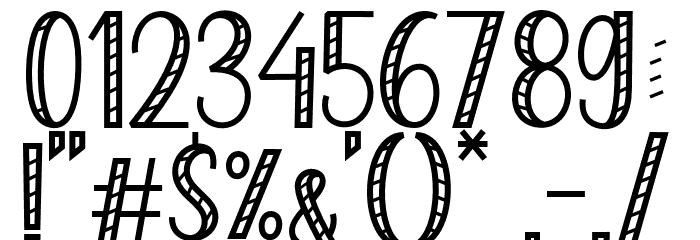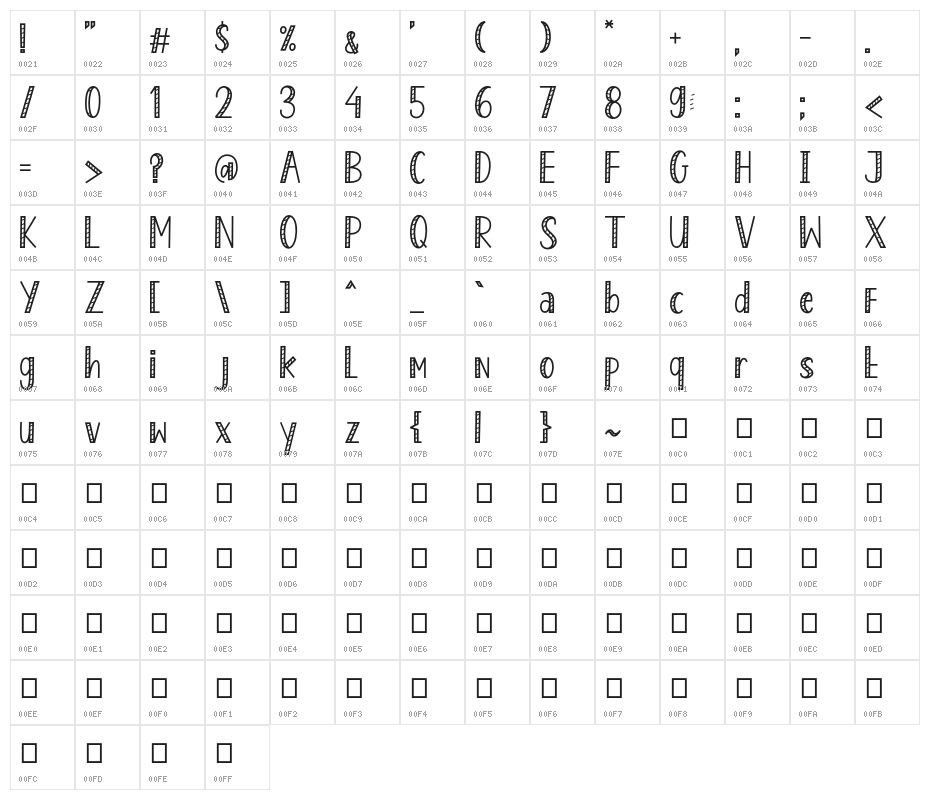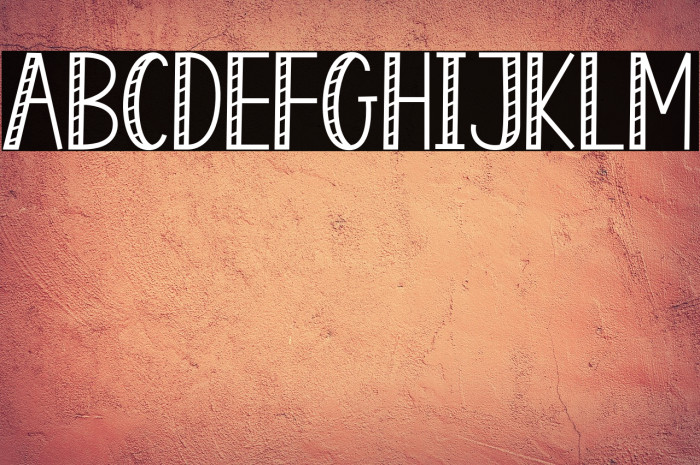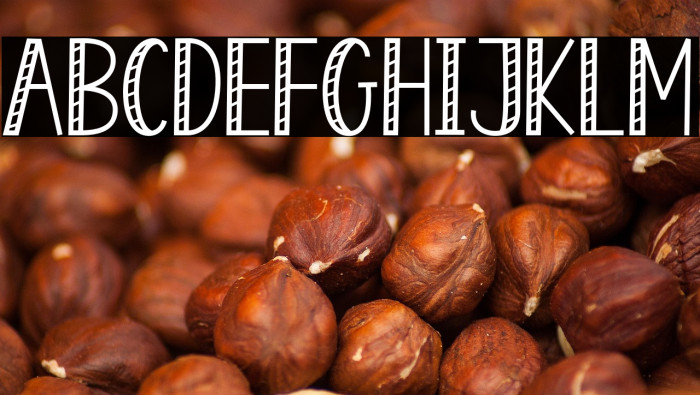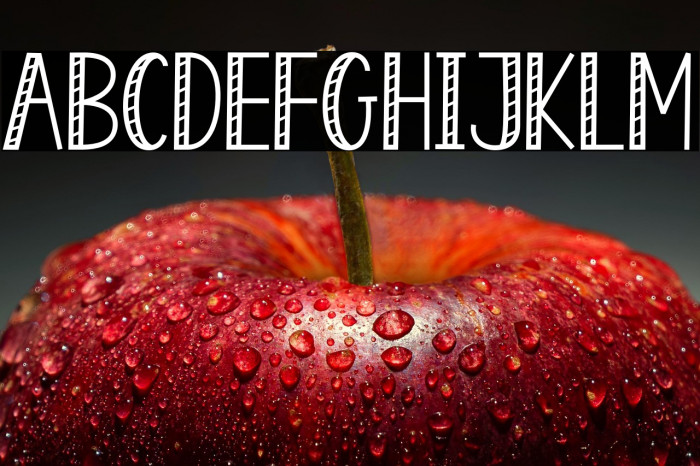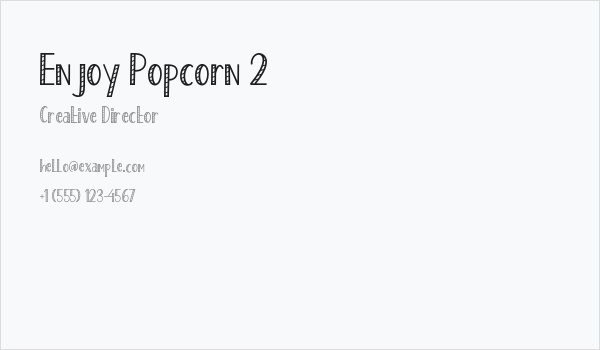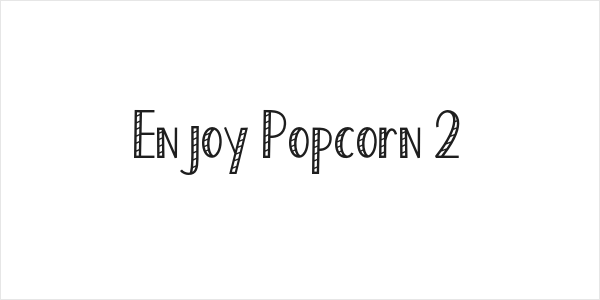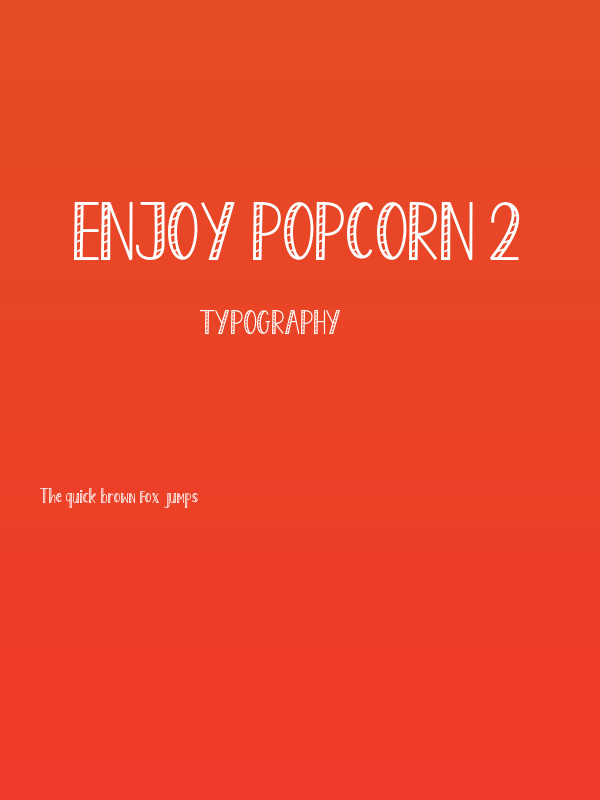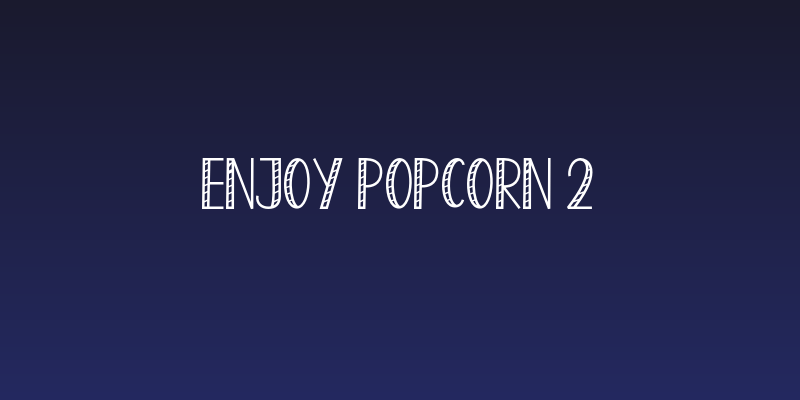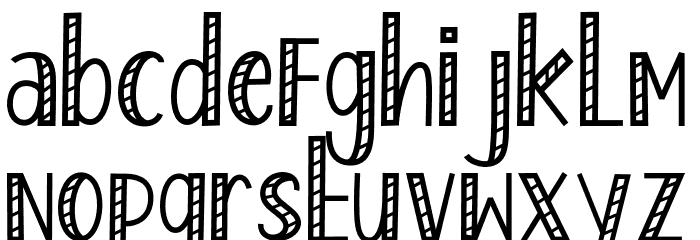
Enjoy Popcorn 2 Font
Enjoy Popcorn 2 Description
This playful and decorative font features a unique striped pattern within each character, giving it a lively and dynamic appearance. The letters are tall and narrow, with a consistent vertical alignment that adds to its quirky charm. The uppercase and lowercase letters maintain a uniform style, while the numerals and special characters complement the overall design. The font's distinctive style makes it ideal for projects that require a fun and engaging visual element, such as party invitations, posters, or children's book covers. Its bold and eye-catching design ensures that it stands out in any context.
| Overall Style | Playful, Decorative |
| Proposed Projects | Ideal for party invitations, posters, children's book covers, and other playful designs. |